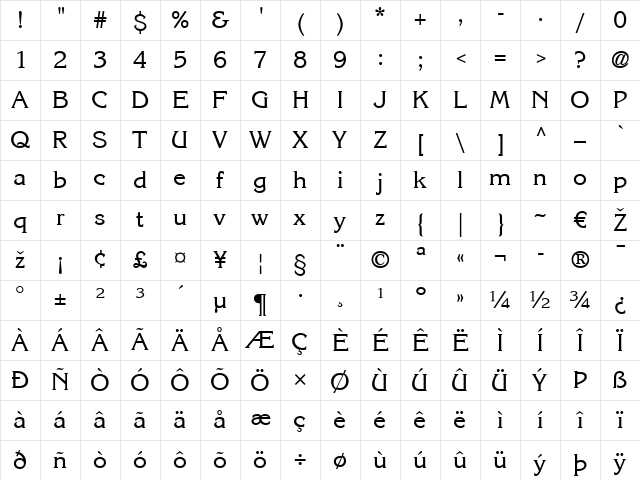
Korinna LT Regular
Design Context for Korinna LT
Korinna LT is a composed and adaptable typeface that performs quietly and consistently across a wide range of design contexts. Its slender proportions lend an understated elegance to any composition.